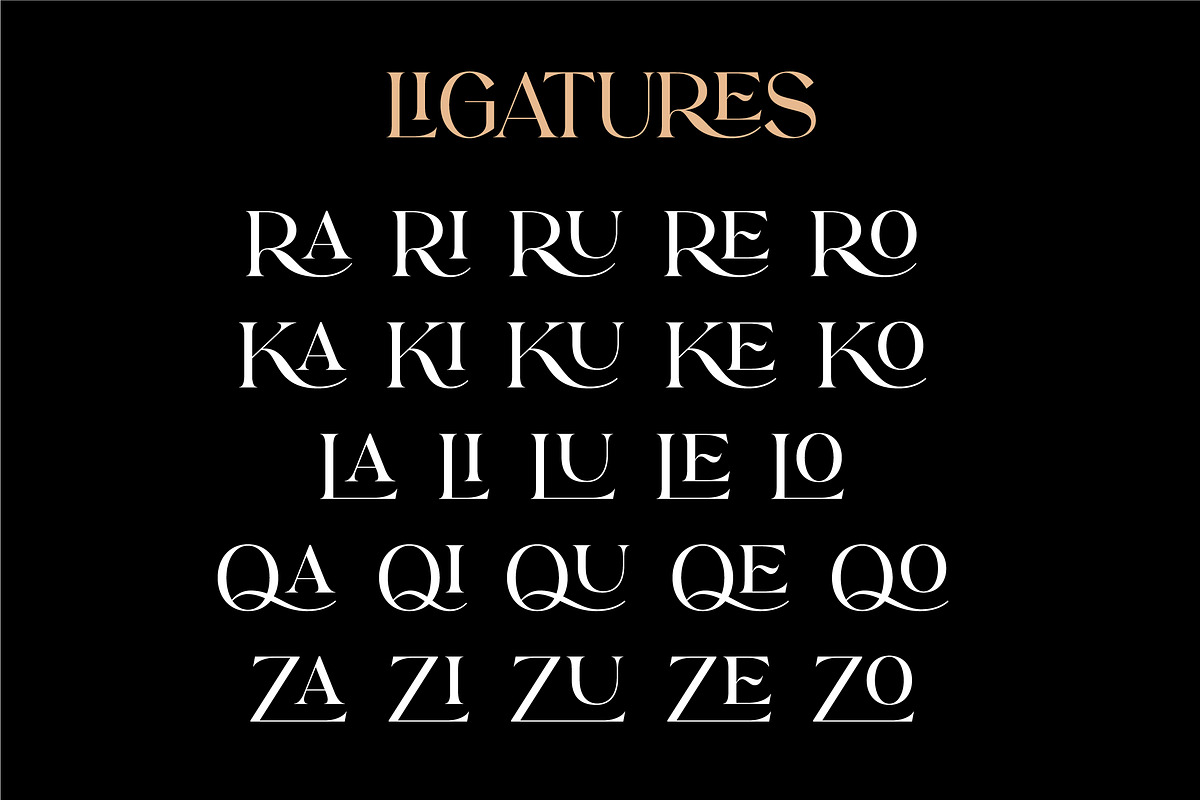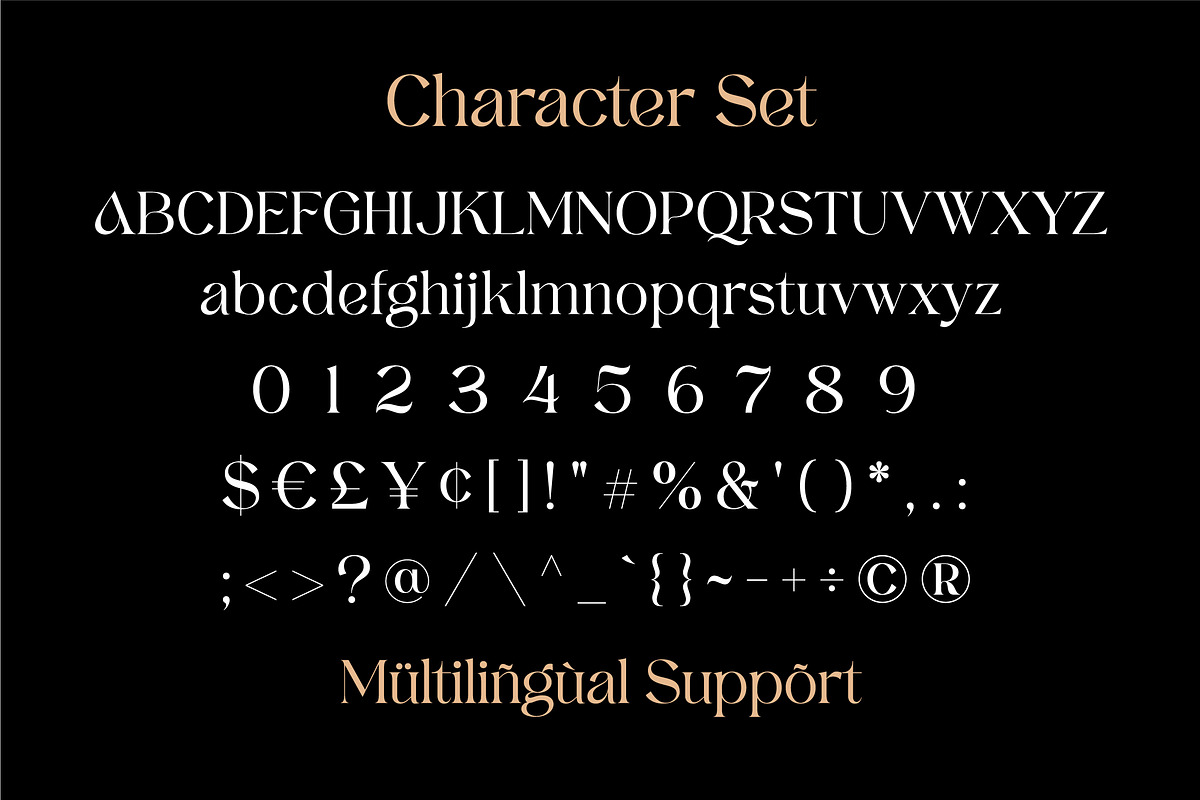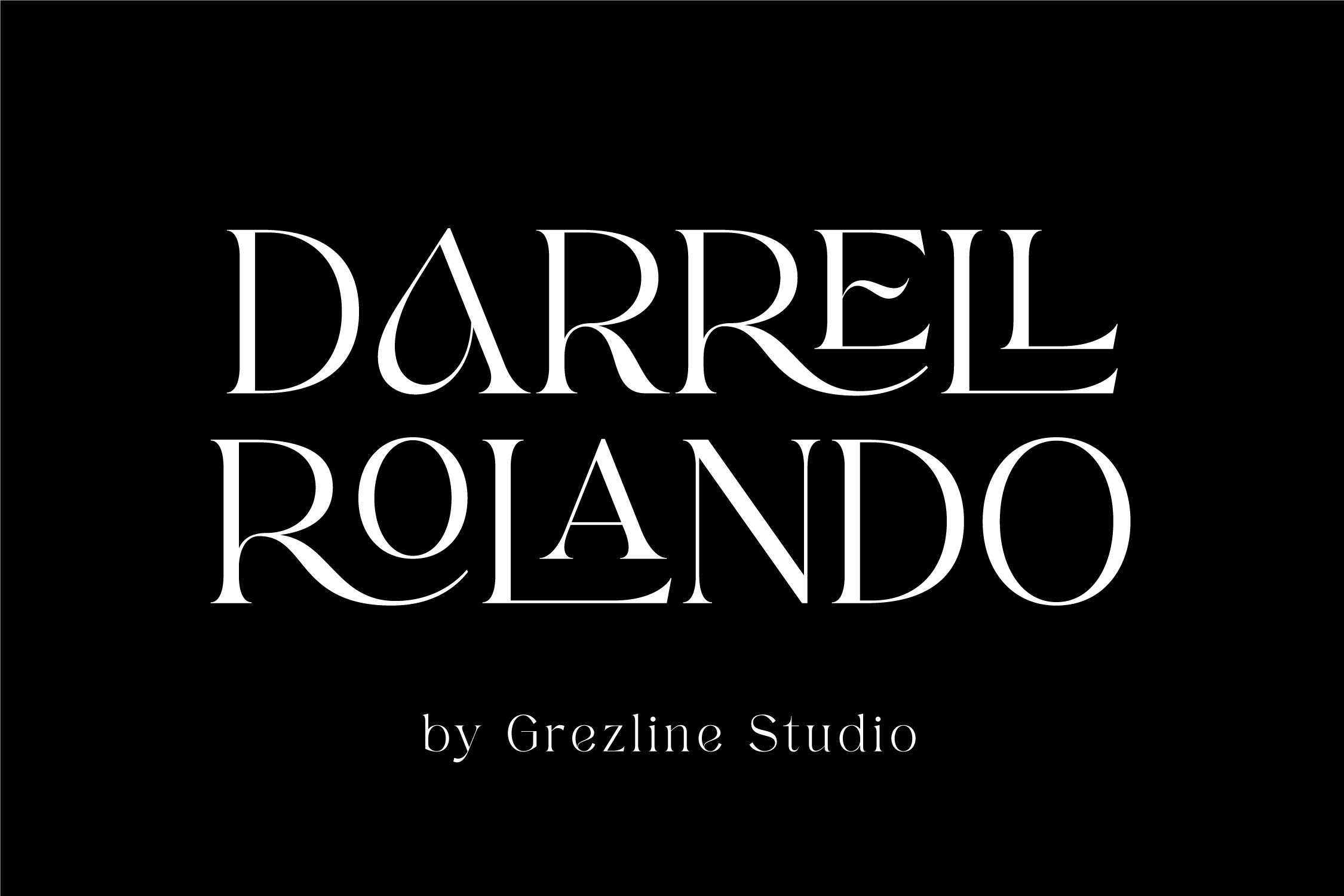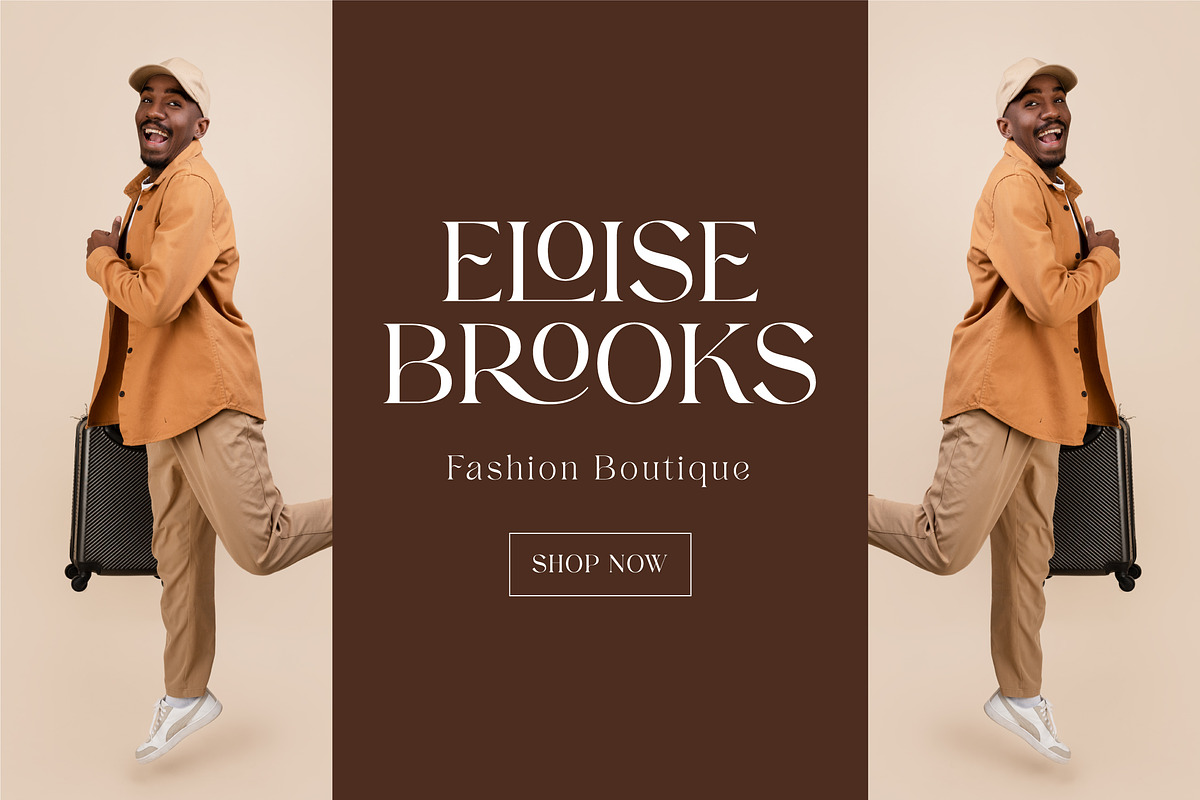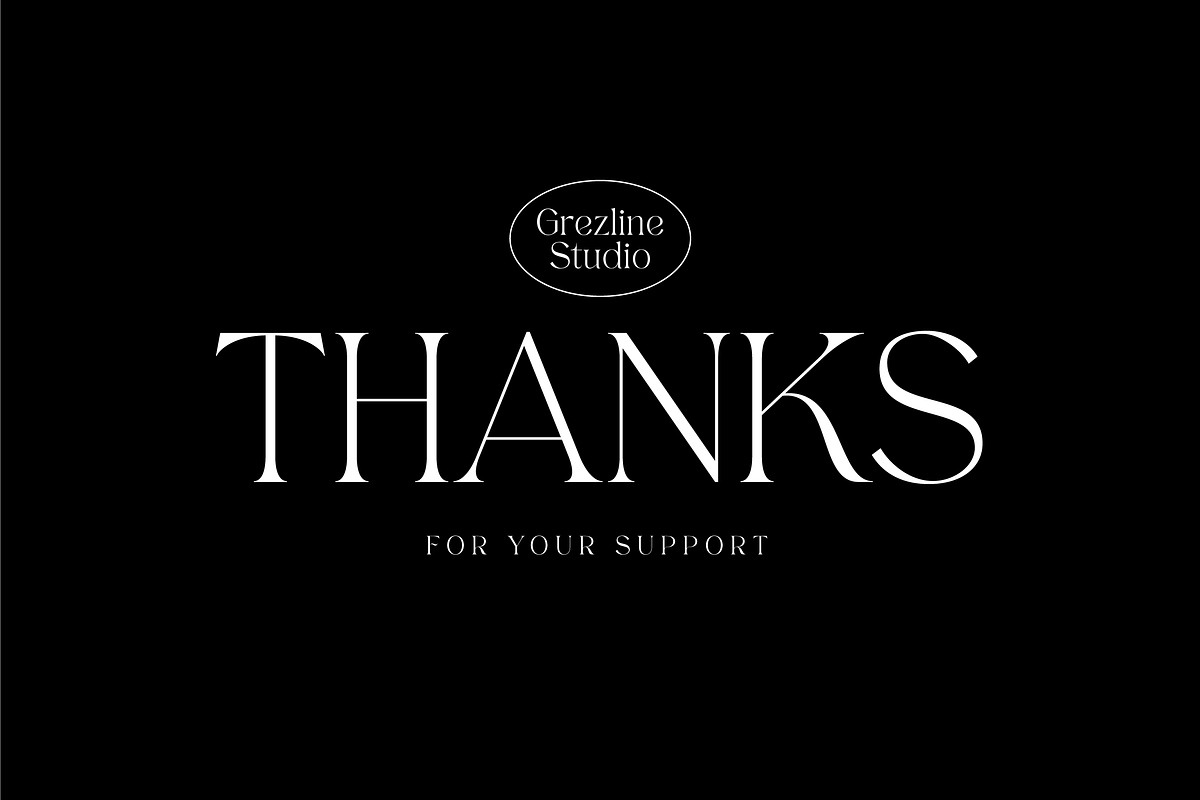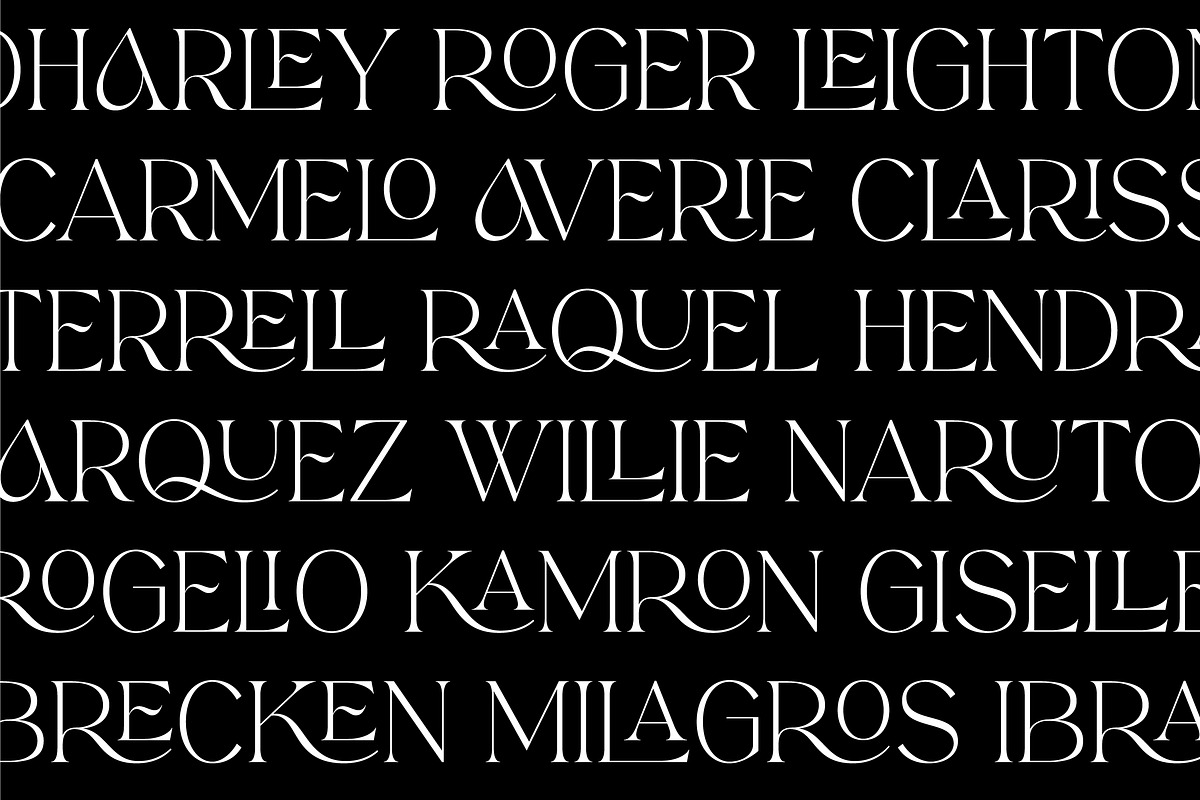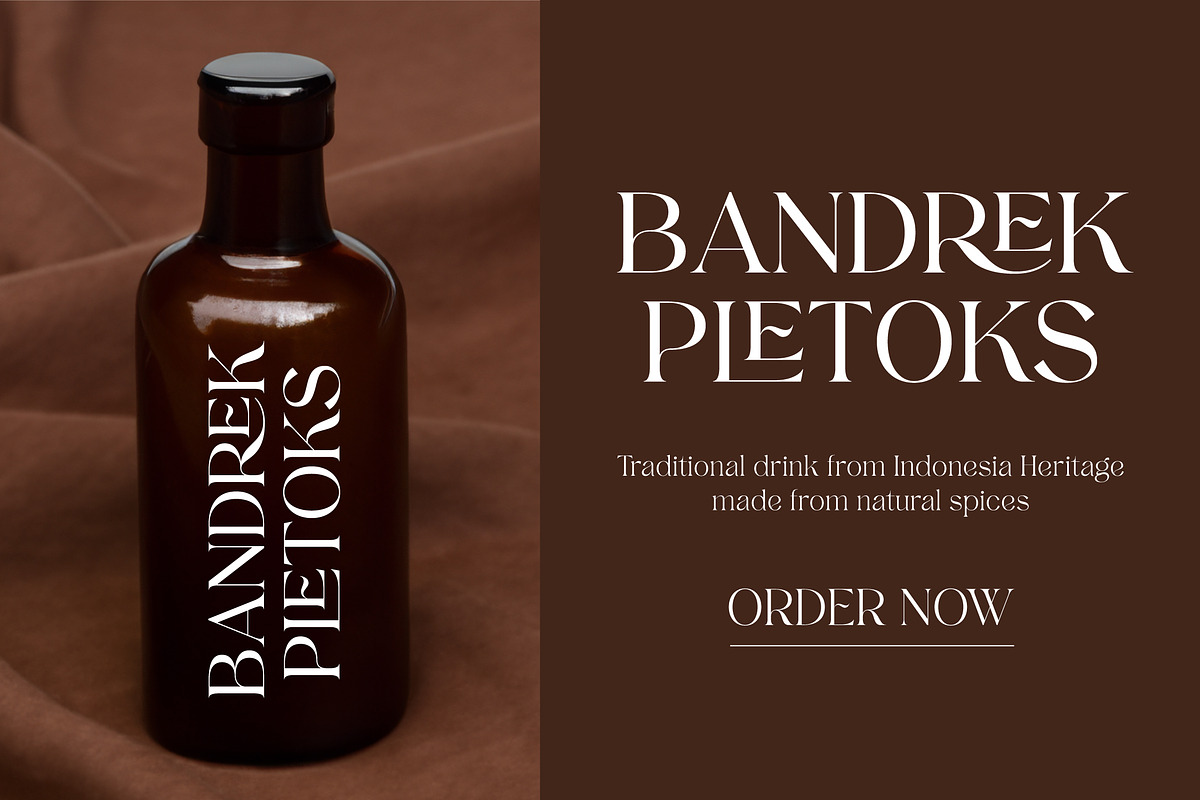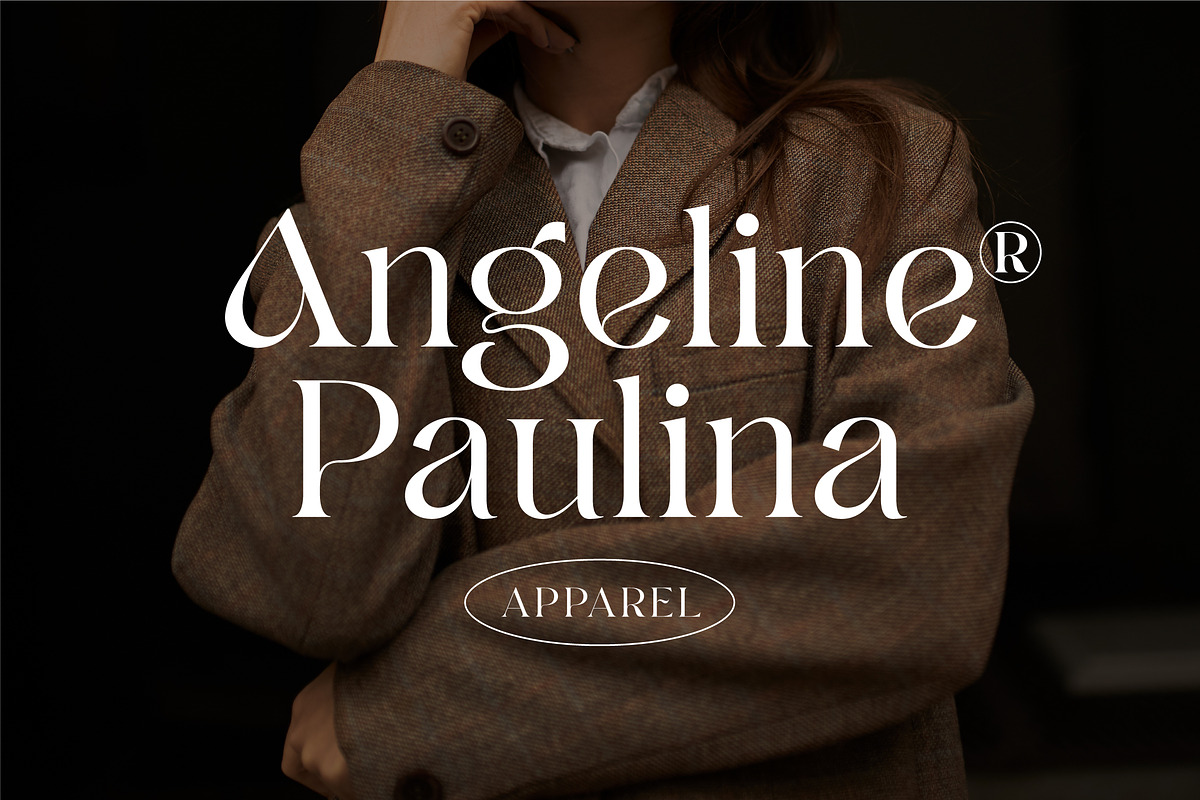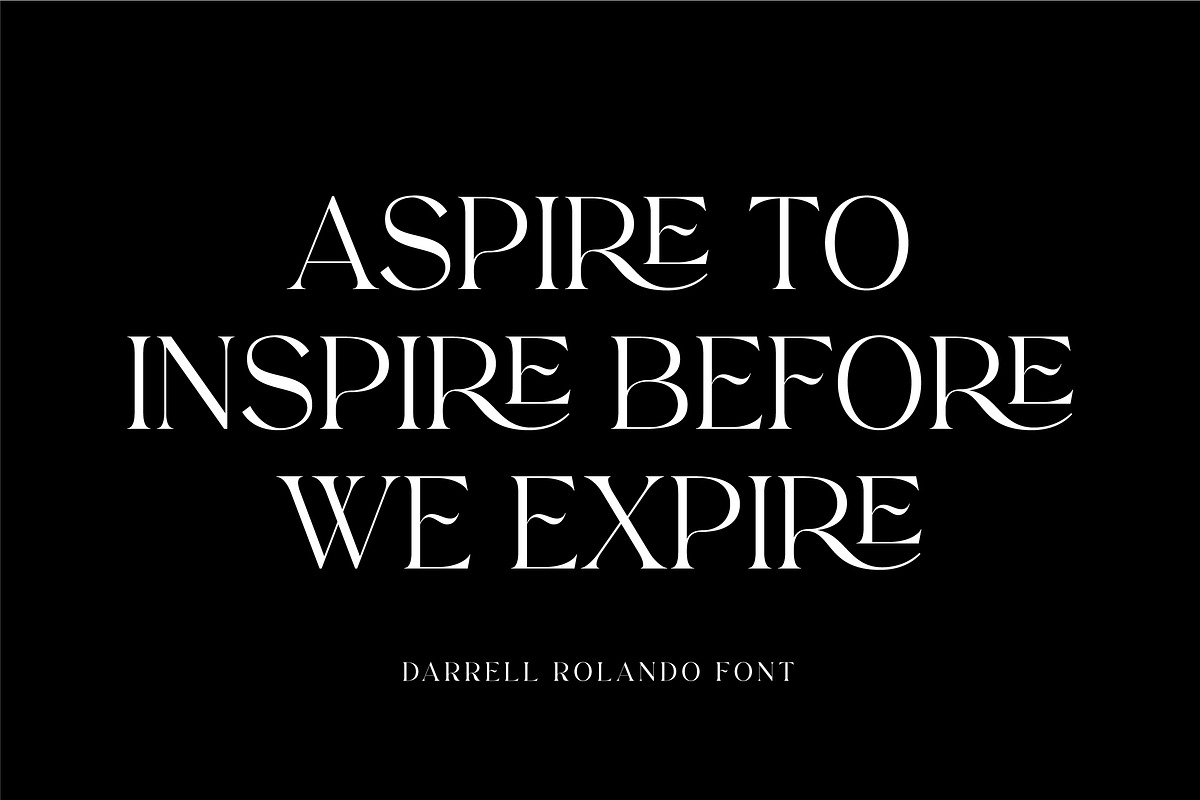
Darrell Rolando - Display Font
Darrell Rolando is a stylish display font with vintage and classic looks. This font comes with unique glyph ligature set. Very suitable for logo, headline, title, invitations, labels, magazines, books, greeting/wedding cards, packaging, fashion, makeup, stationery, novels, labels, or any type of advertising purpose.
- Alternates and Ligatures
- Multilingual Language